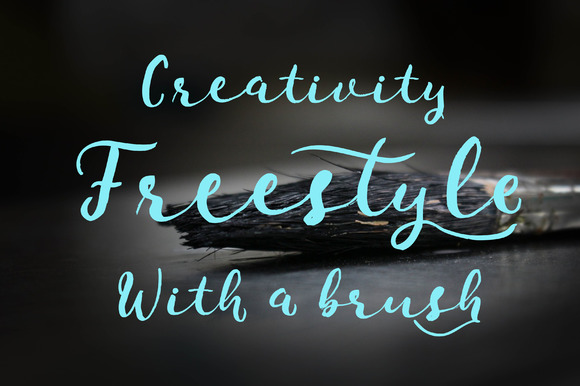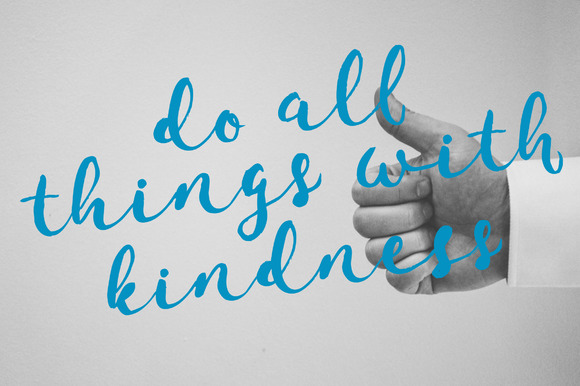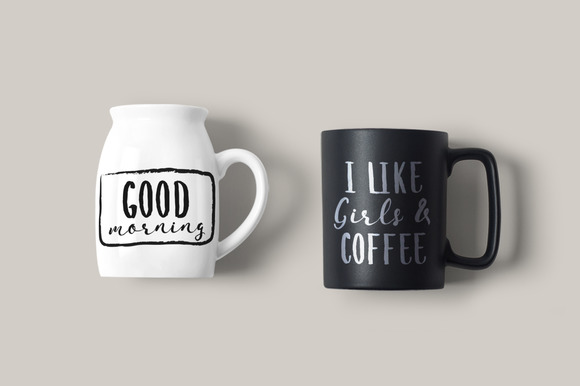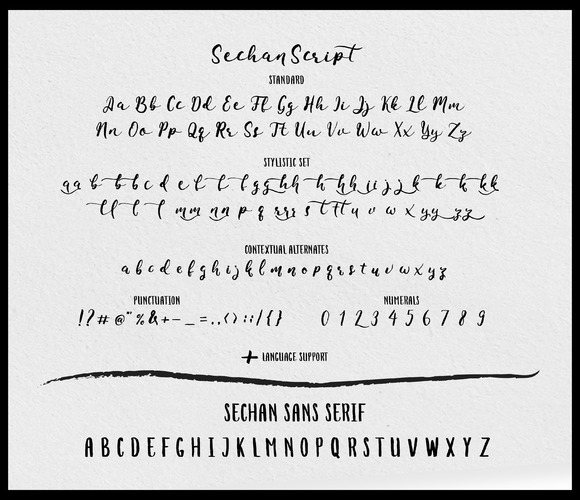
Introduction to Sechan Font
Do you ever find yourself in the middle of a creative project, desperately searching for the perfect font to bring your design to life? You’ve tried countless options, but none seem to capture the essence of your vision. That’s when you stumble upon the perfect combination – a harmonious union of typography that elevates your work to the next level.
Meet the Sechan Font, a set of 2 hand-made brush fonts designed to seamlessly combine and create masterful typographic designs in no time. Whether you’re working on a high-quality design project or simply looking for a free download to add some flair to your creative endeavors, Sechan Font is an invaluable resource for designers of all levels.
Key Features of Sechan Font
- Unique, modern font with a transparent background, perfect for digital art and graphics.
- Supports various languages, making it a versatile design resource for international projects.
- Designed with a high resolution, ideal for printing and digital use, with a minimum resolution of 300 DPI.
- Perfect for designers, artists, and creators looking for a unique and high-quality design resource for their next creative project.
Honest Review: Sechan Font
I recently came across the Sechan Font, and I must say it’s been a great addition to my design resource collection. The font offers a unique and creative vibe that’s perfect for any project that requires a bit of personality.
- ✨ High-quality design: The Sechan Font is meticulously crafted with attention to detail, resulting in a beautiful and professional-looking font.
- ✨ Transparent background: The font has a transparent background, allowing for seamless integration into any design project.
- ⚠️ Limited font styles: The Sechan Font comes in a limited number of styles, which might not be ideal for designers who need a wide range of font options.
- ⚠️ Not ideal for large-scale text: Due to its unique design, the Sechan Font might not be the best choice for large-scale text or headings.
Overall, the Sechan Font is a great addition to any design project that requires a bit of creativity and personality. While it has its limitations, its high-quality design and free download make it an excellent resource for designers.
Tips for Getting the Most Out of Sechan Font
To get the most out of Sechan Font, use it on a transparent background to create a clean and modern design. You can also pair it with other design elements, such as images and graphics, to create a unique and creative project.
Sechan Font is commonly used in logos, business cards, and marketing materials. Its high-quality design and transparent background make it a versatile font that can be used in a variety of creative projects.
Alternatives to Sechan Font